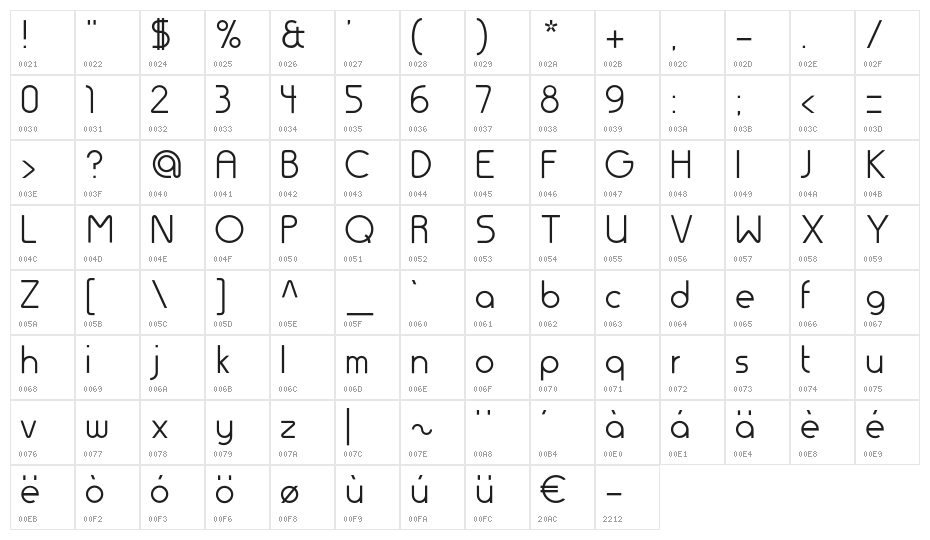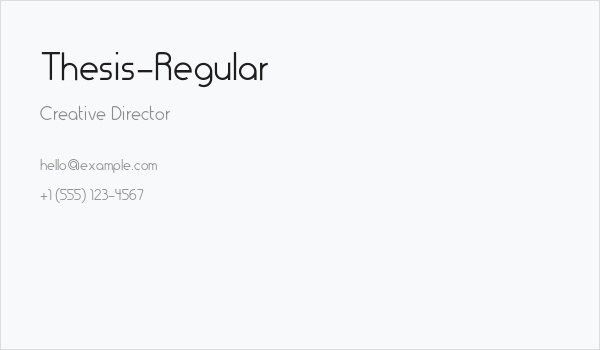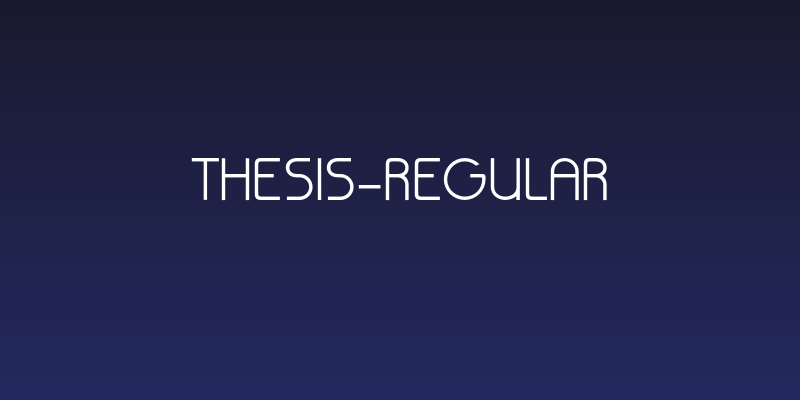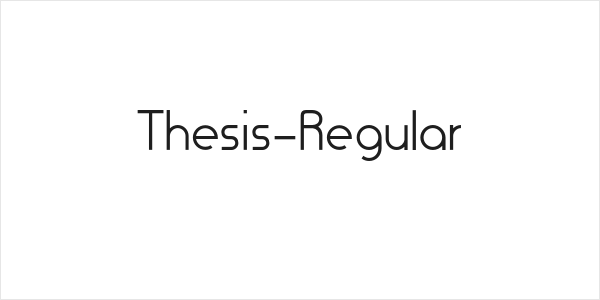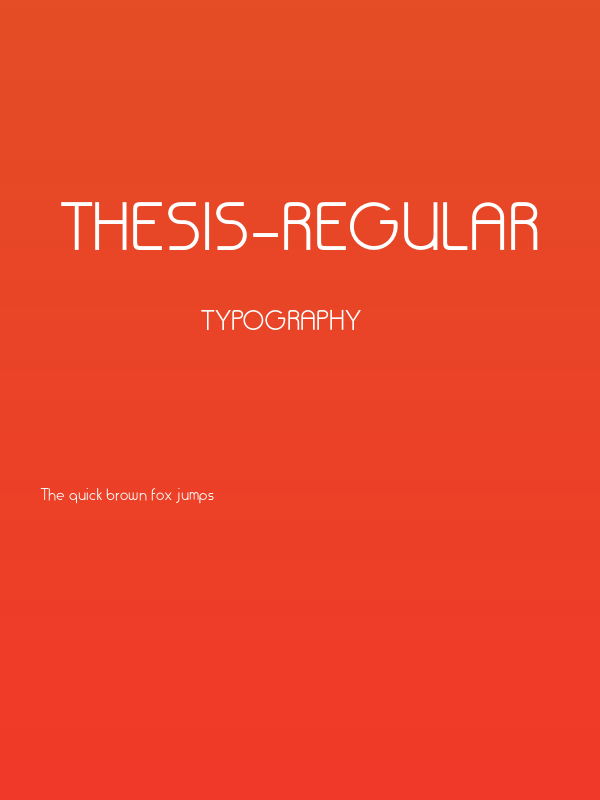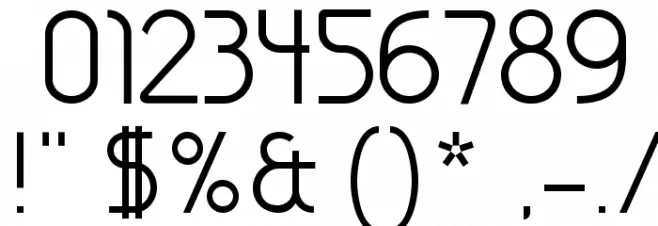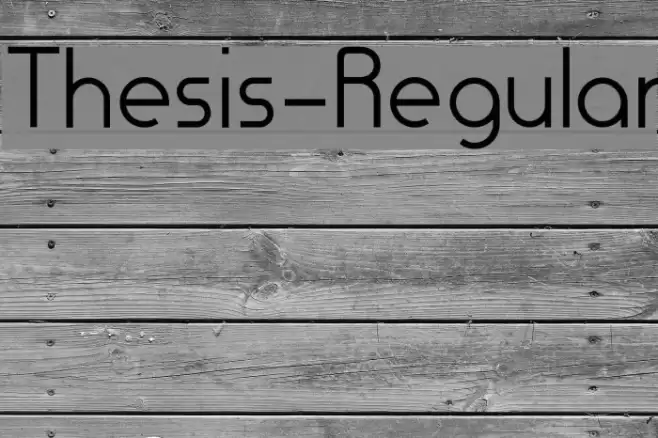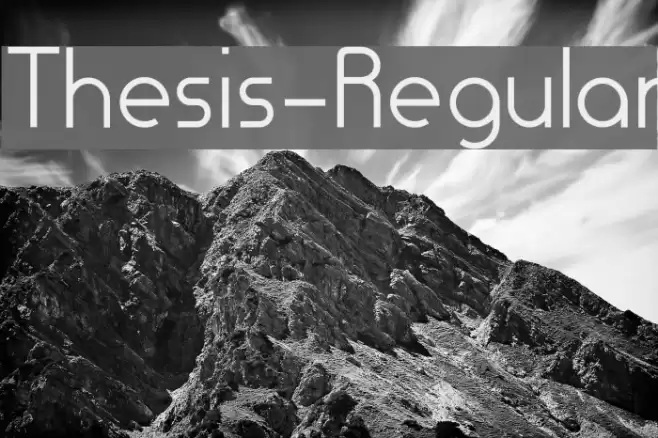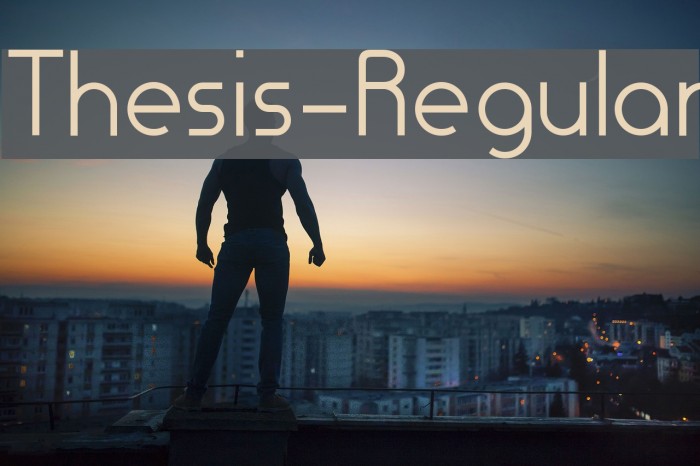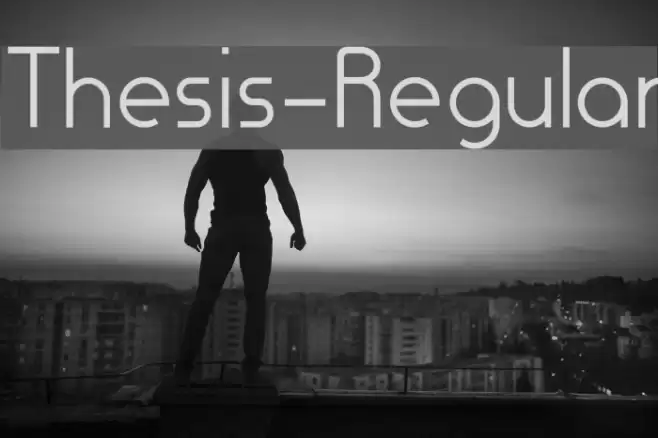
Thesis-Regular Font
Thesis-Regular Description
This font exhibits a clean and modern sans-serif style, characterized by its geometric shapes and uniform stroke width. The uppercase letters are tall and slightly condensed, providing a sleek and professional appearance. The lowercase letters maintain a consistent height, contributing to the font's readability and balance. The numerals are clear and distinct, matching the overall aesthetic of the alphabet. Special characters are well-integrated, ensuring versatility in various design contexts. The font's simplicity and elegance make it suitable for both digital and print media, offering a contemporary look that is both functional and stylish.
| Use Case | Headlines, Body text, Logos |
| Proposed Projects | Ideal for corporate branding, web design, editorial layouts, and advertising materials. |